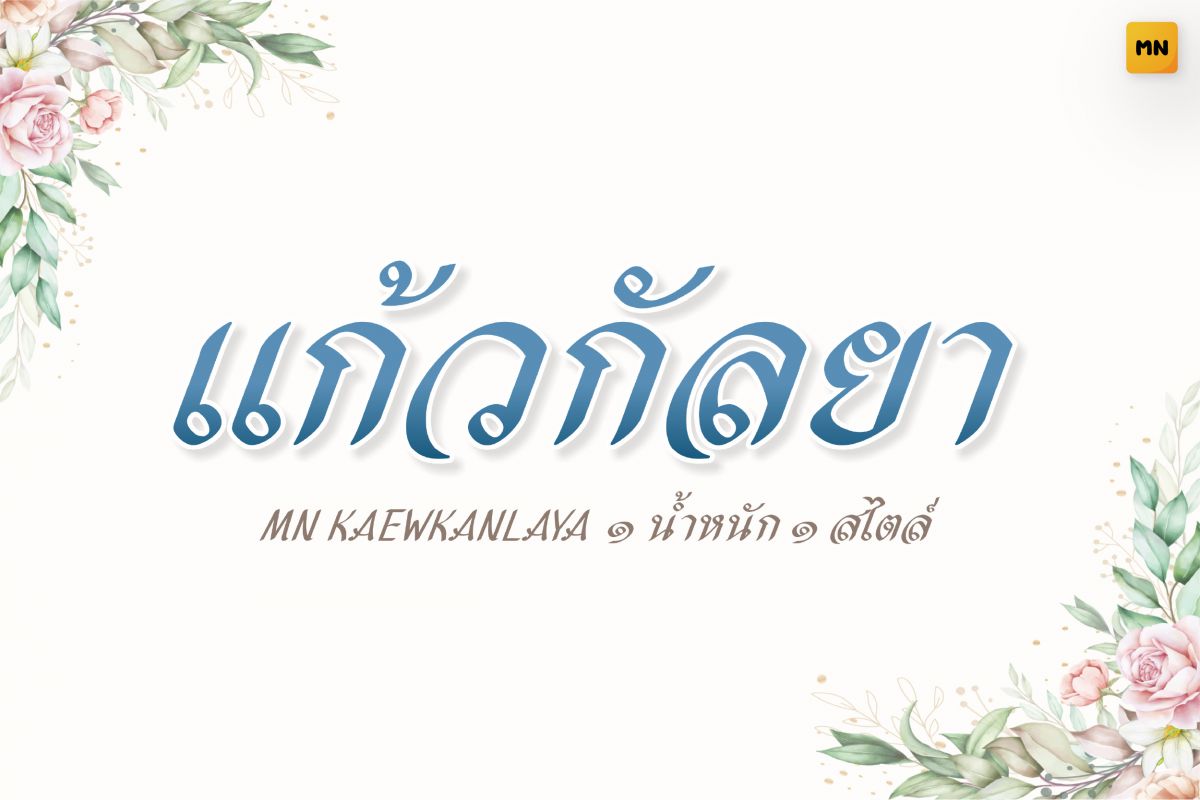
MN KAEWKANLAYA Regular
A delicate Thai display font with soft curves and elegant strokes. Its graceful form makes it ideal for wedding invitations, greeting cards, or designs that require a romantic and refined atmosphere.